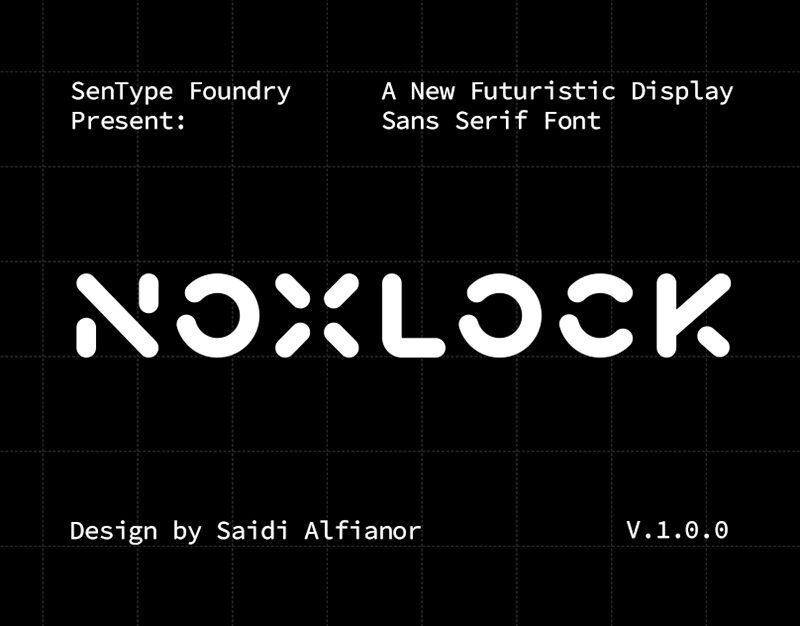
Noxlock
Noxlock font by Sentype combines modernity with futuristic elements in an interesting way. This expanded techno display font features sleek geometric letter shapes where the simplicity of the designs takes over. Its sharpness and clean lines allow for a minimalistic design to always be created.
Have fun using Noxlock in headings, page titles, branding projects, social media posts, packaging, logo designs, posters, and banners. It’s also perfect for creative digital and print artworks such as gaming magazine covers or video game UIs.
Designed by Saidi Alfianor